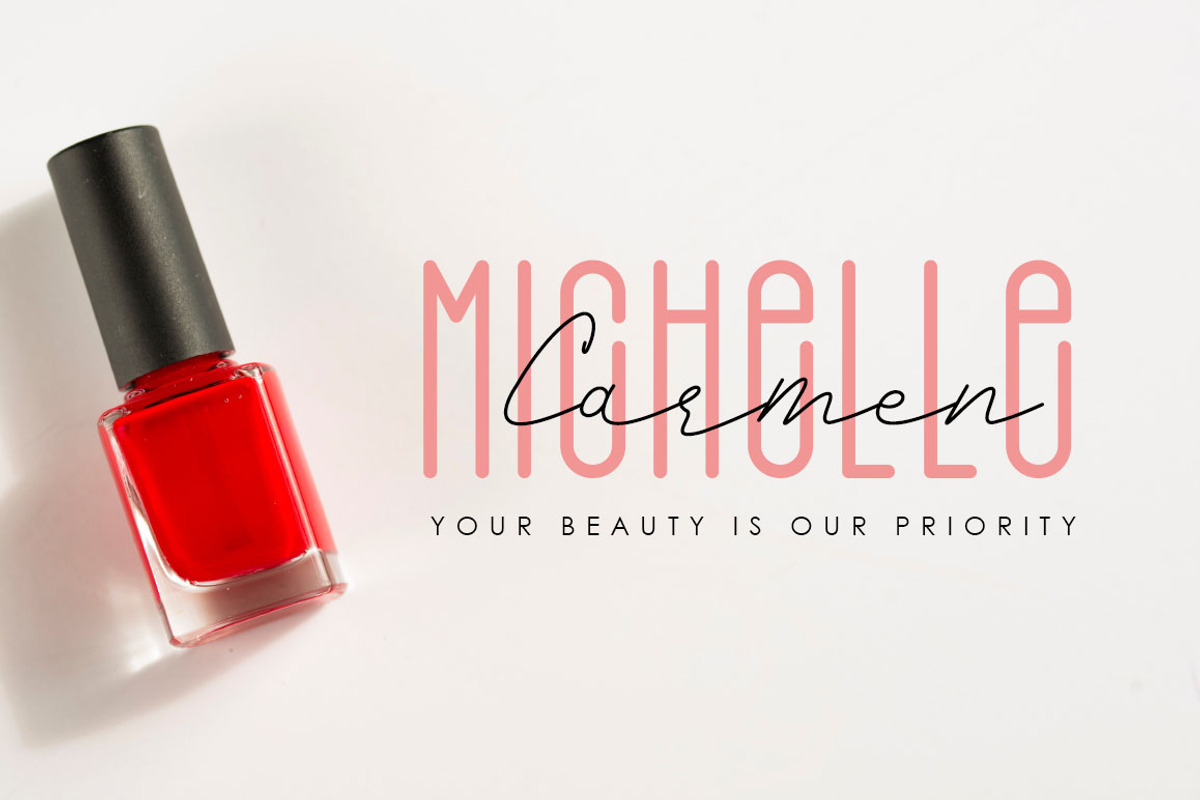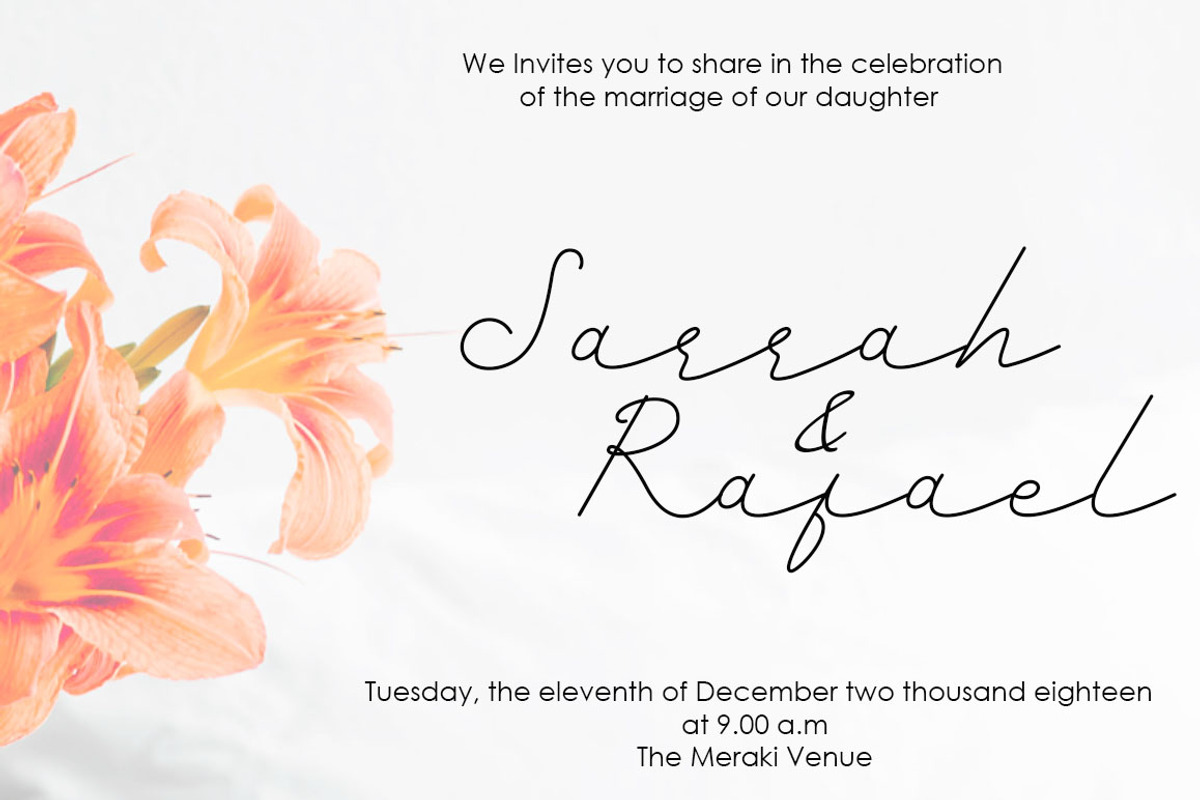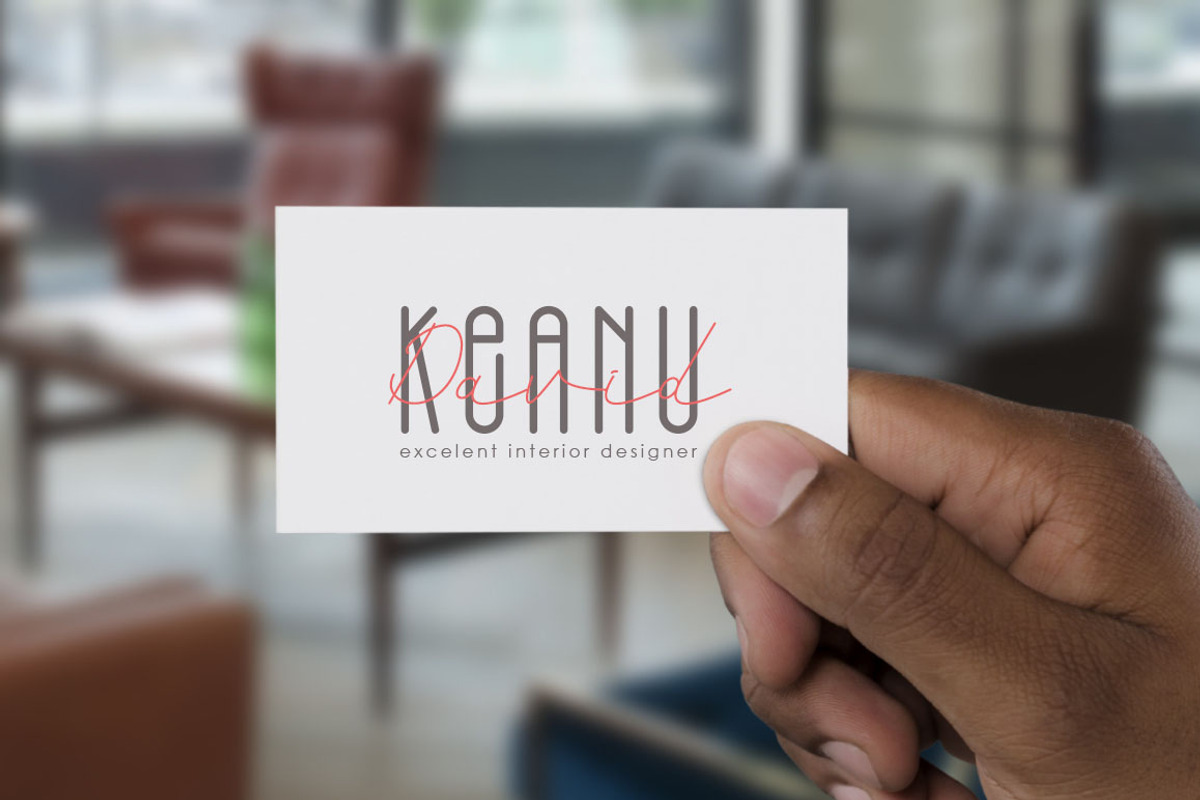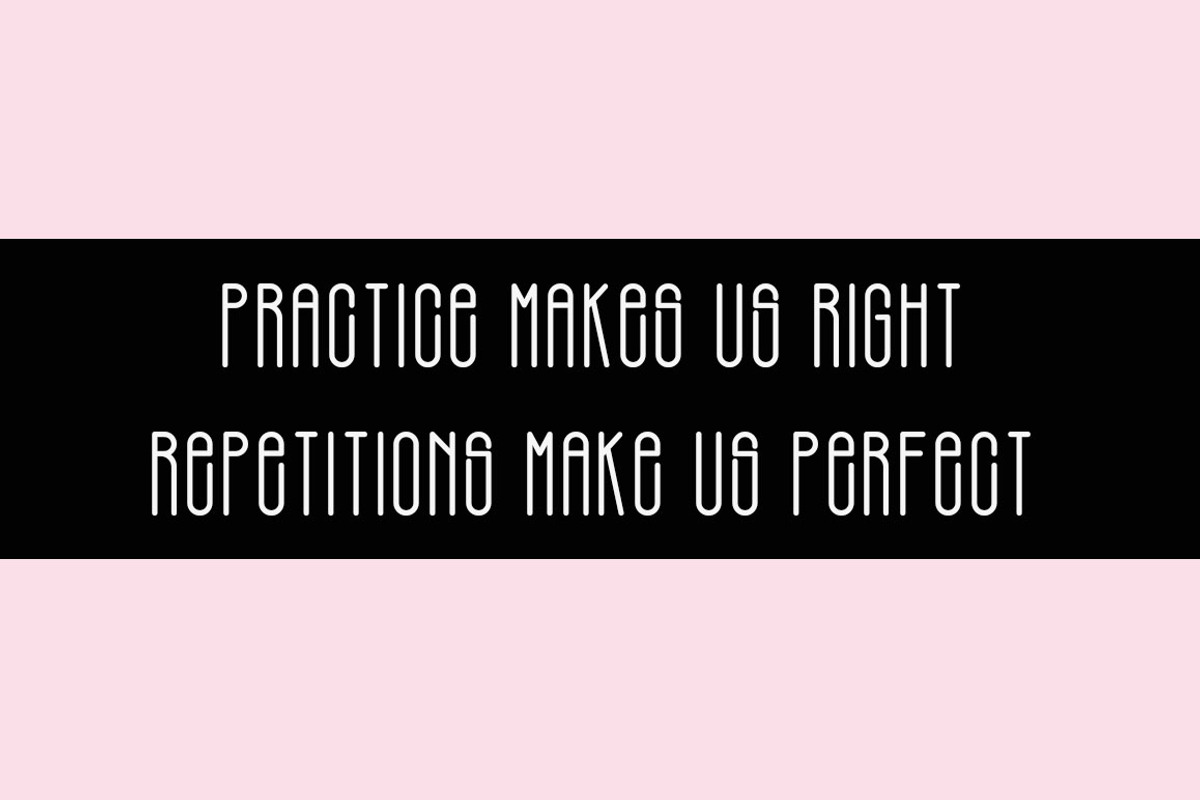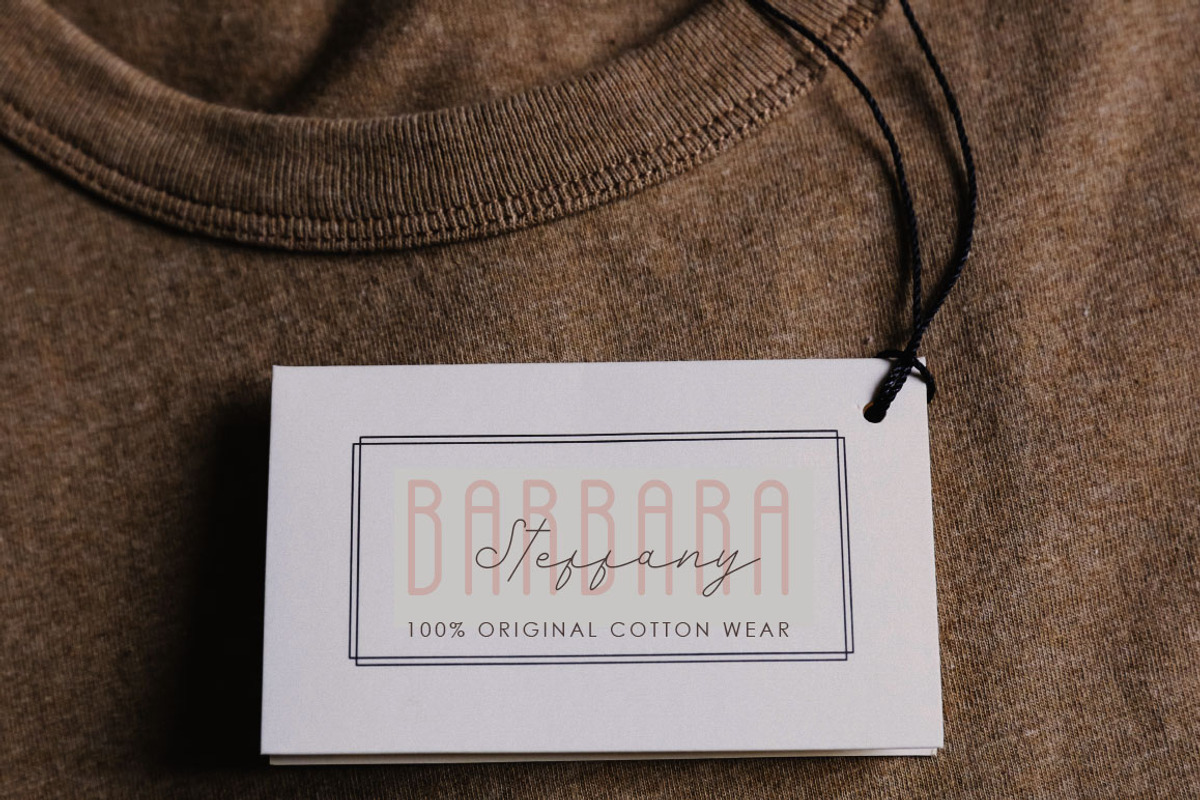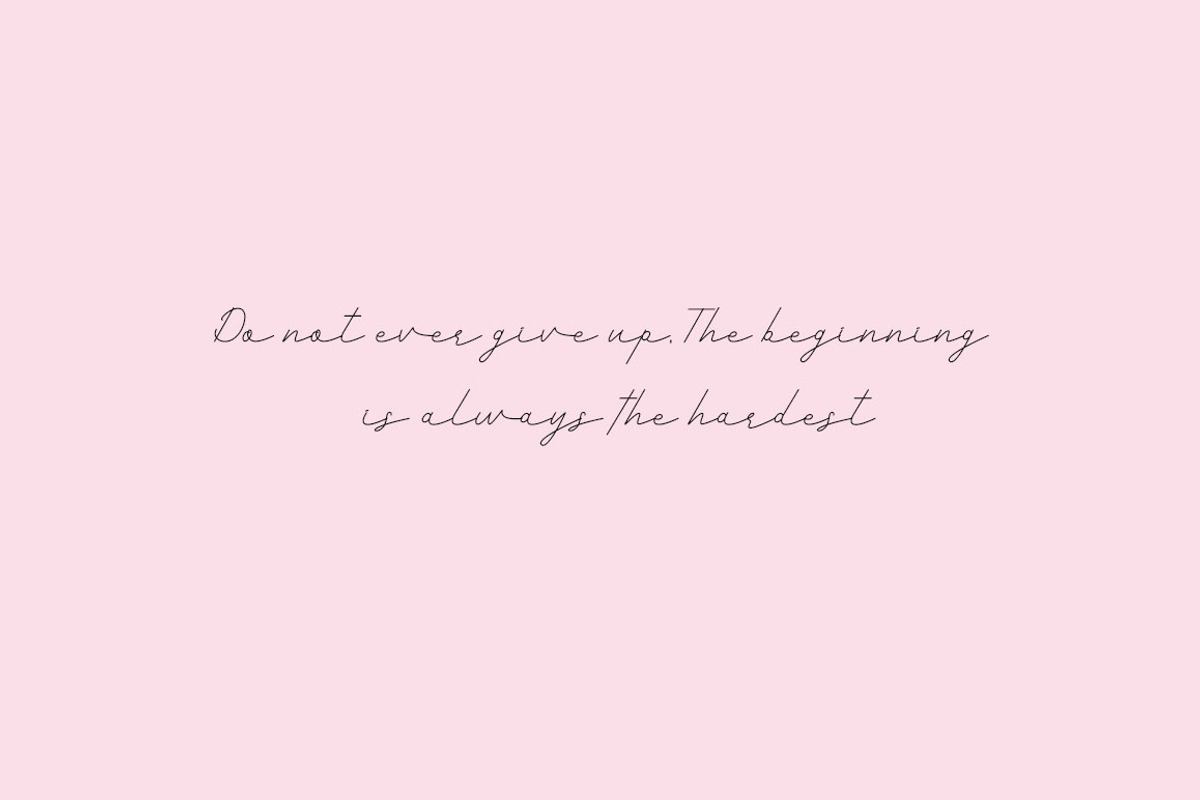
Black Forest l Elegant Font Duo
Black Forest is a beautiful high fashion font duo that makes for gorgeous logos, posters, wedding invitations, blog posts, social media, and more!
I love using them together with layer masks in Photoshop, so it looks like the script is running through the lines of the sans serif. The sans looks stunning.
- Black Forest Script includes ligatures to make everything look totally hand-done, and alternates for each letter.
Why Black Forest l Elegant Font Duo is worth a look
Black Forest l Elegant Font Duo by Haksen fits naturally into Branding, posters, packaging, typography.